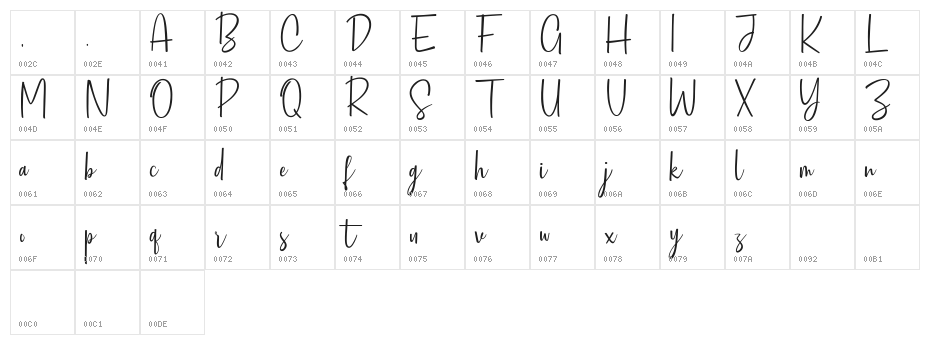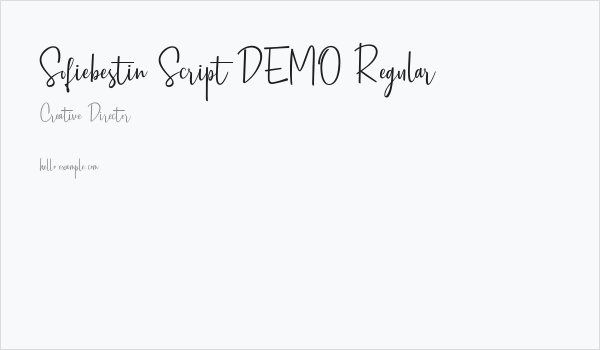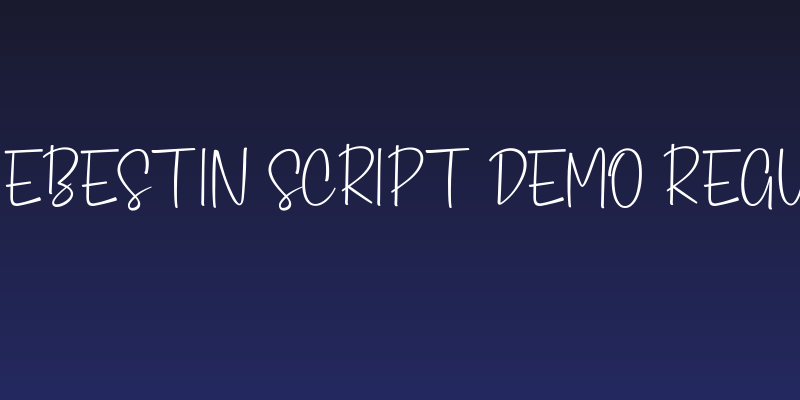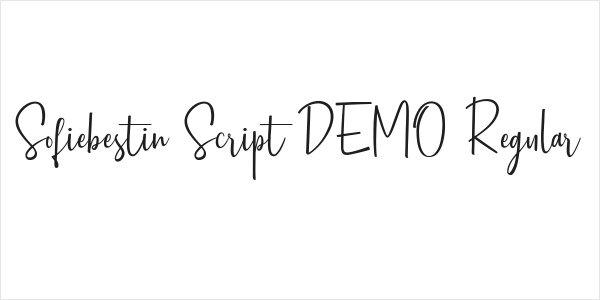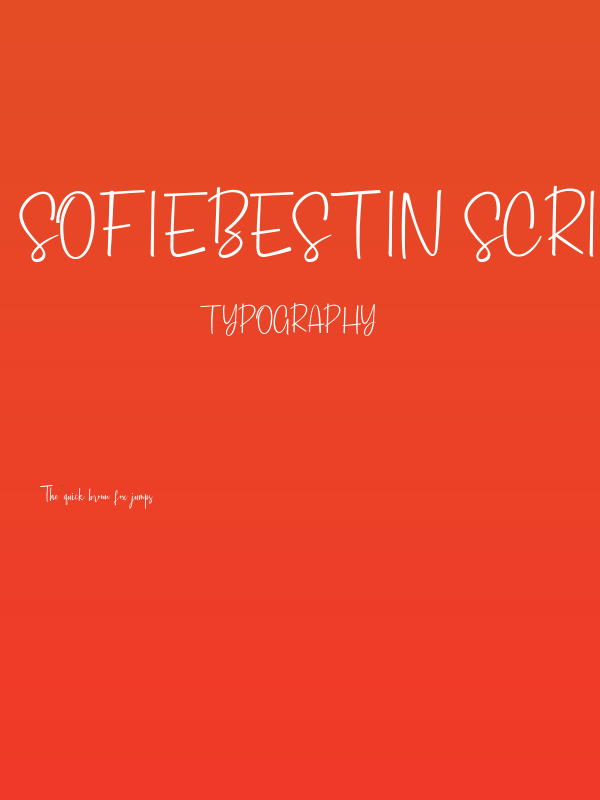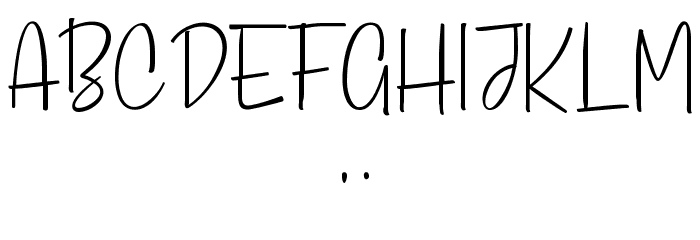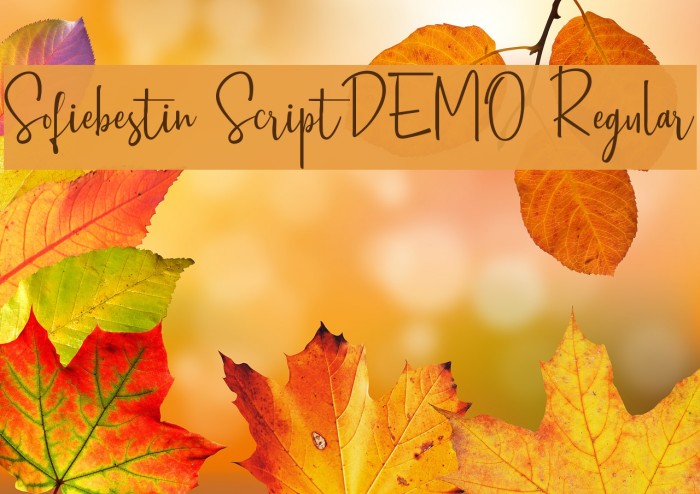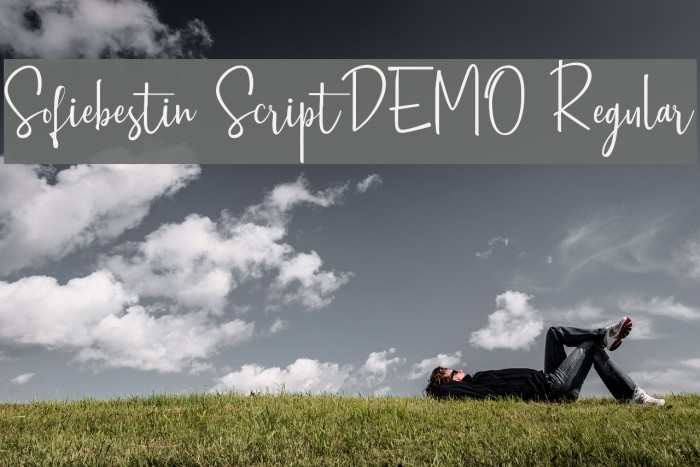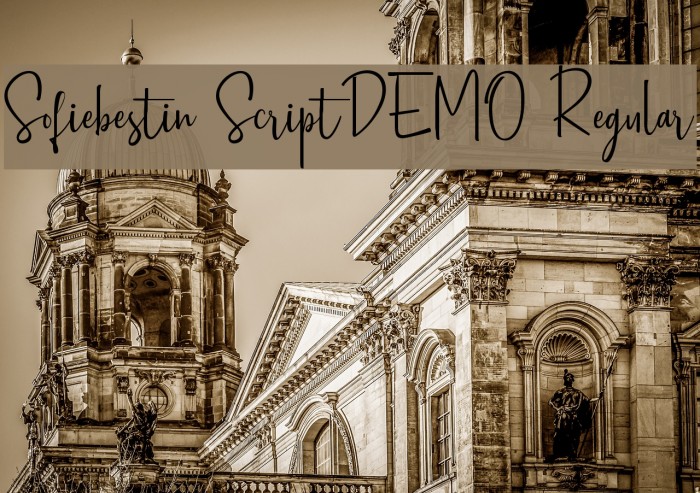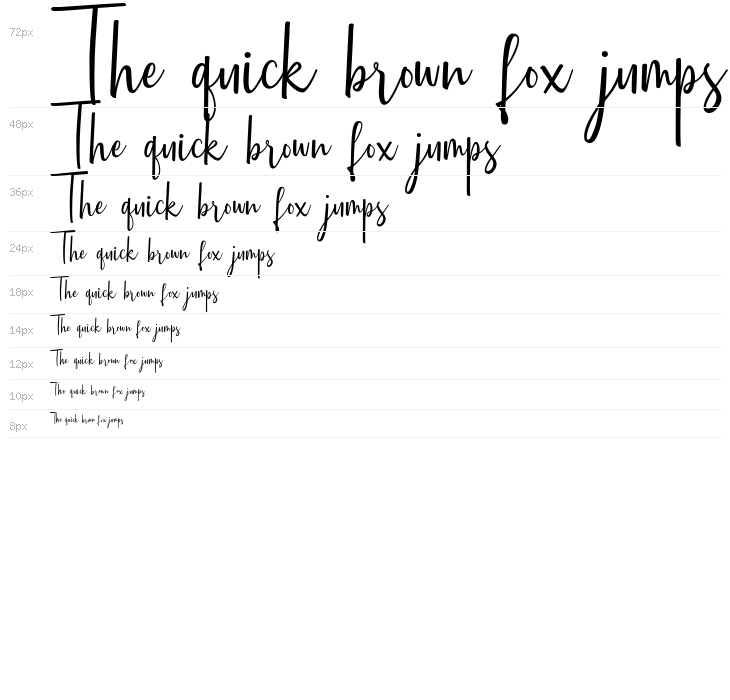
Sofiebestin Script_DEMO Regular Font
Sofiebestin Script_DEMO Regular Description
This font features a playful and elegant script style with a handwritten feel. The uppercase letters are tall and slender, with a slight slant that adds a dynamic flow to the text. The lowercase letters are more fluid and connected, enhancing the script's natural and casual appearance. The strokes vary in thickness, providing a medium contrast that adds depth and interest to the characters. The font maintains a consistent baseline, ensuring readability while retaining its artistic flair. Its unique style makes it suitable for creative projects that require a personal touch.
| Use Case | Logos, Invitations, Social Media |
| Proposed Projects | Ideal for wedding invitations, greeting cards, branding, and social media graphics. |